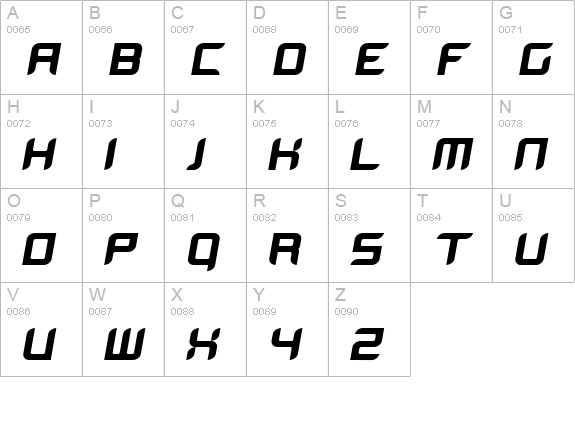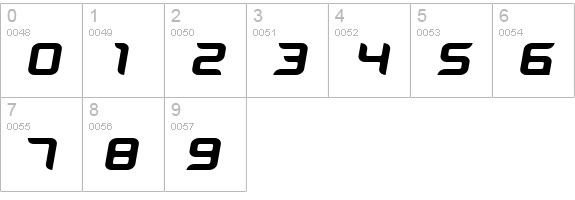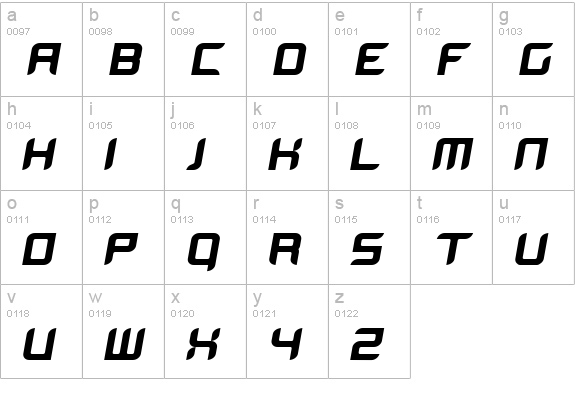
BloodWaxItalic Font Details
Introducing BloodWaxItalic, a bold and edgy font that exudes a sense of mystery and intrigue. Its sharp angles and stylish curves make it perfect for designs that demand attention. Whether you're working on a poster, logo, or headline, BloodWaxItalic will add a touch of drama to your project. The best part? BloodWaxItalic is available for free download at FontsMarket.com. That's right, you can easily access this unique font and elevate your designs without breaking the bank. Don't miss out on the opportunity to add BloodWaxItalic to your font collection today!